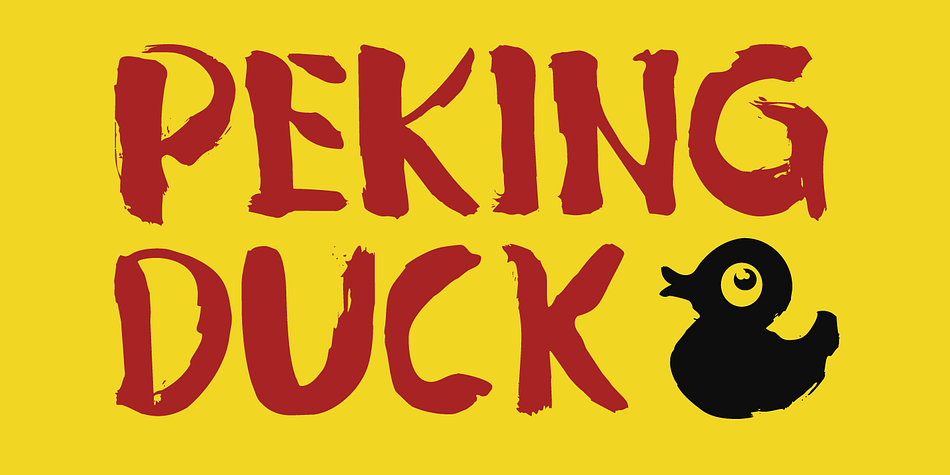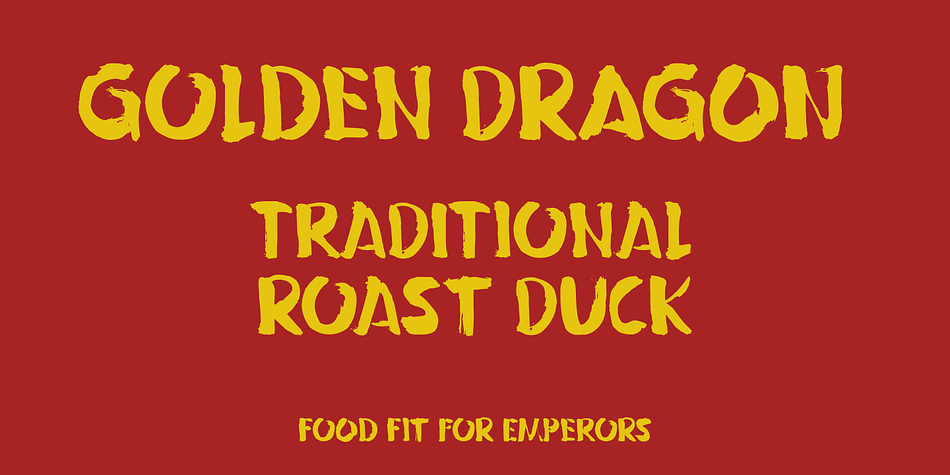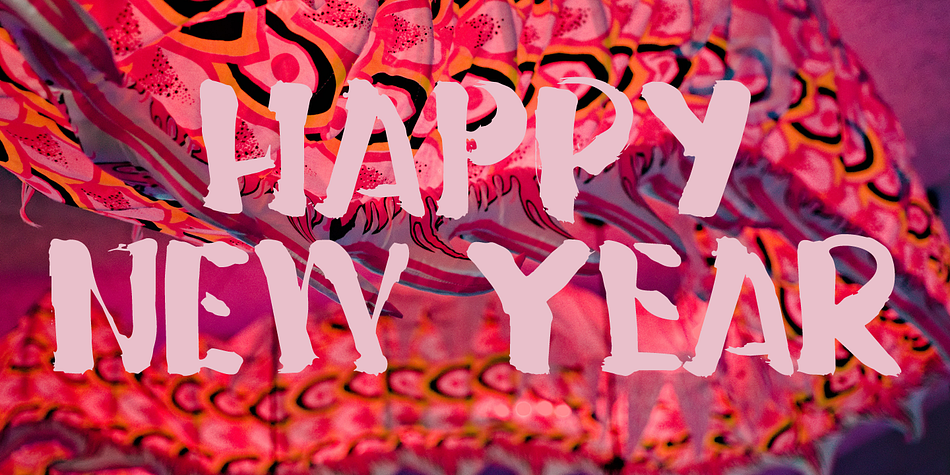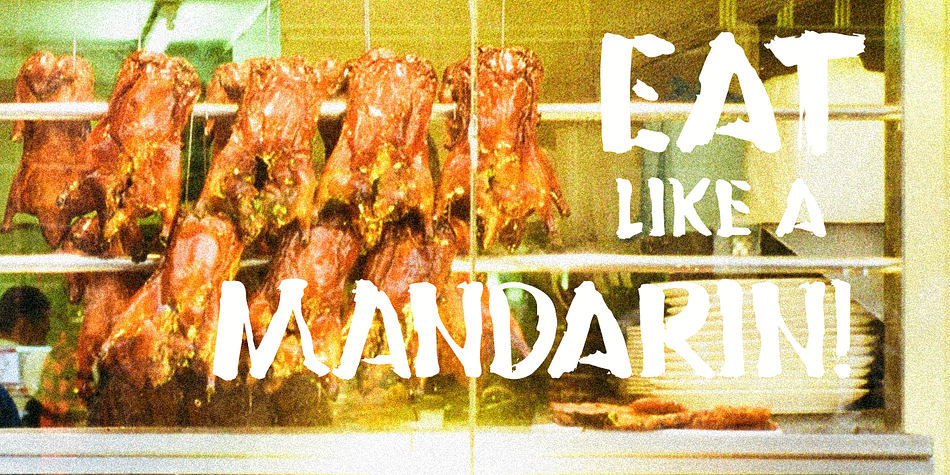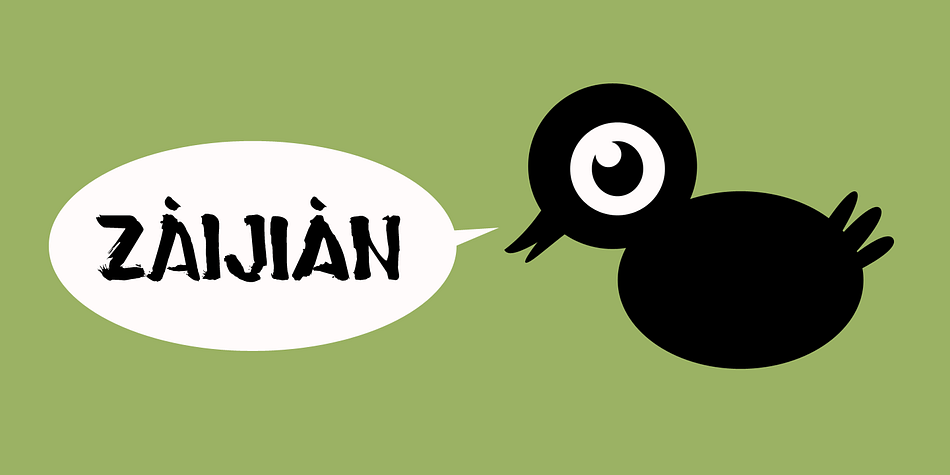
Designed by David Kerkhoff, Peking Duck is a brush display font family. This typeface has two styles and was published by Hanoded.
I used to be a tour guide and I traveled to China numerous times. Usually, the itinerary mentioned going to a restaurant in Beijing and eating ‘Beijing Roast Duck’ (北京烤鸭), a famous dish that has been prepared since the Imperial era. Typically, the whole duck is sliced at your table. The skin is crisp, glazed and thin and you should eat it with thin pancakes and thinly sliced spring onion.
Of course, if I had to guide several ‘China tours’ in a row, I would often eat something else (there is only so much Beijing Duck you can eat).
Peking Duck is a nice, handmade, Chinese Ink font. Use it for your restaurant menu, your book covers or your posters, advertising oriental food!